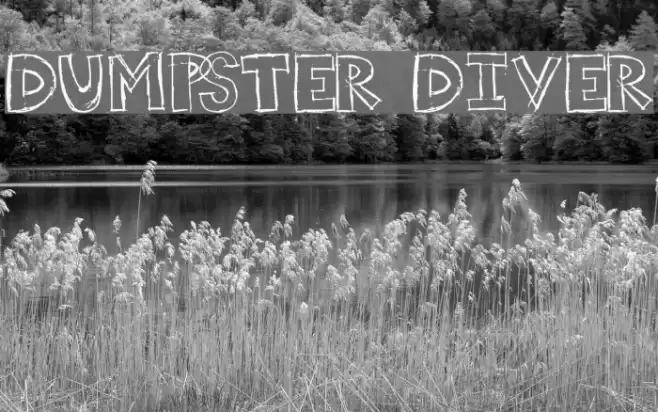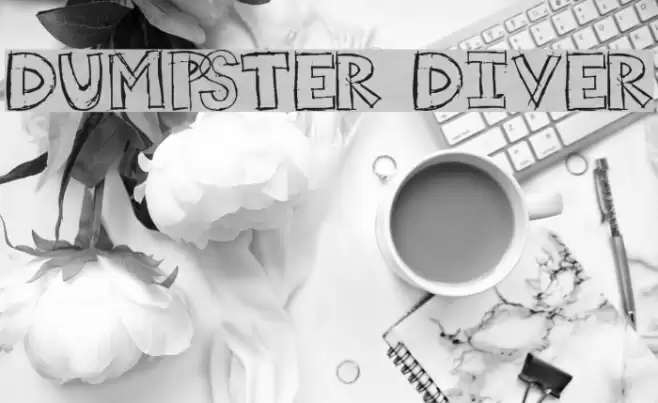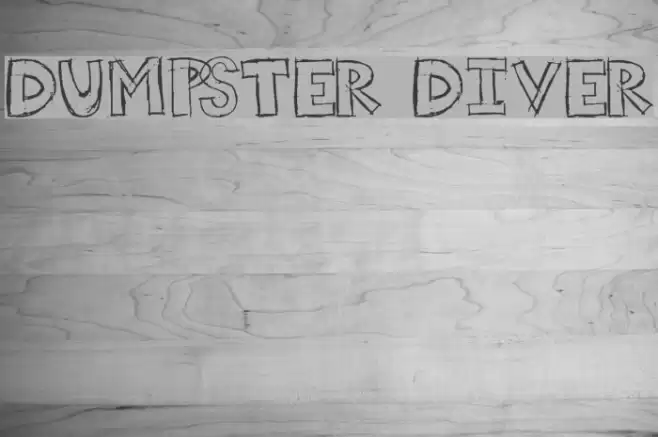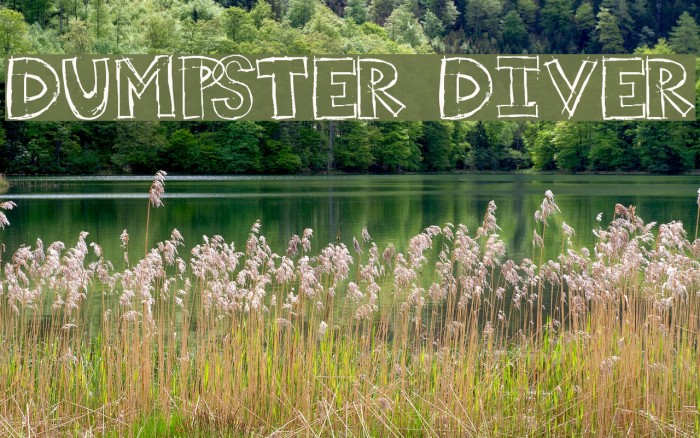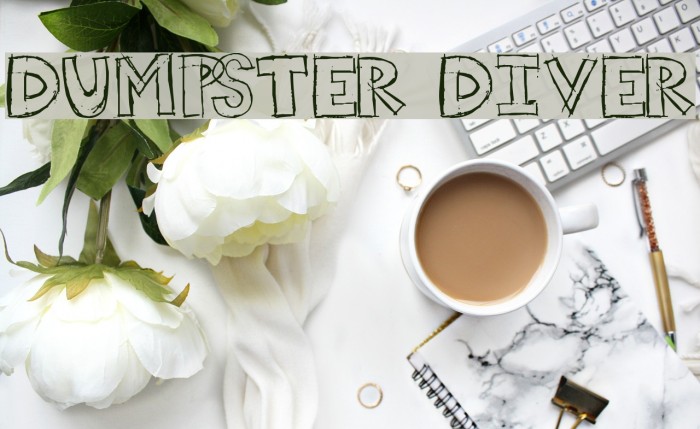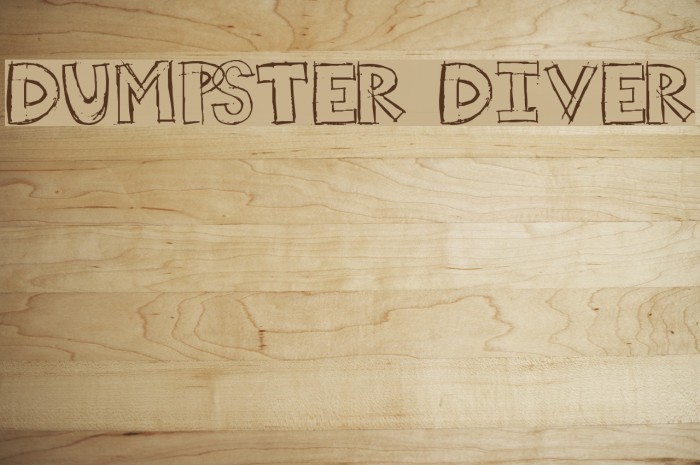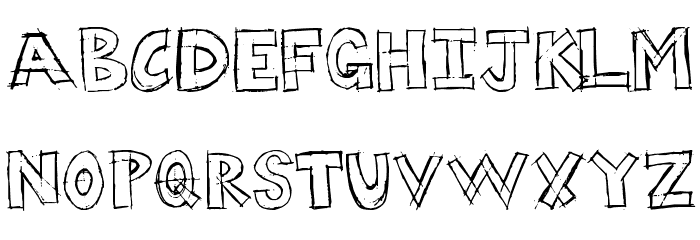
Dumpster Diver Font
Dumpster Diver Description
This font features a unique, hand-drawn style with a playful and slightly chaotic appearance. Each letter is outlined with a rough, sketch-like quality, giving it an informal and artistic feel. The characters are bold and have an irregular, uneven texture that adds to the whimsical nature of the design. The font captures a sense of spontaneity and creativity, making it ideal for projects that require a fun and unconventional aesthetic. Its distinct look is reminiscent of doodles or graffiti, providing a youthful and energetic vibe.
A playful, hand-drawn font with a sketch-like, chaotic appearance from Outline fonts.
- Proposed Projects: Ideal for children's book covers, creative posters, casual branding, and artistic projects.
- Overall Style: Whimsical, Artistic
- Use Case: Headlines, Posters, Creative projects